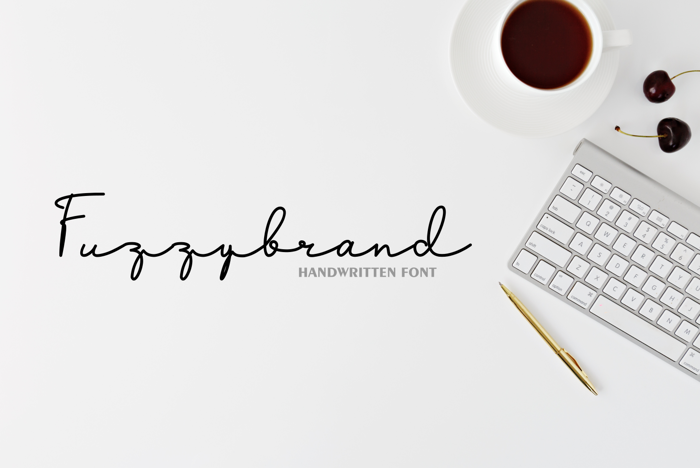
Fuzzybrand Font
Introducing Fuzzybrand Font. With a classy and natural handwritten style, it brings a classy and chic typeface. Fuzzybrand is best used for branding, logotype, quotes and etc .